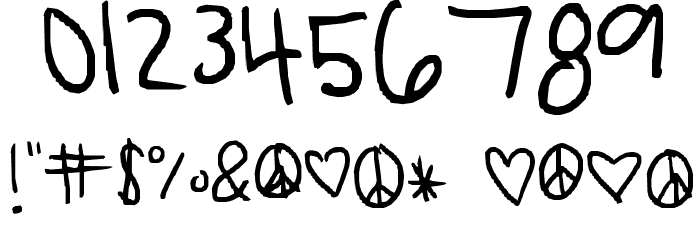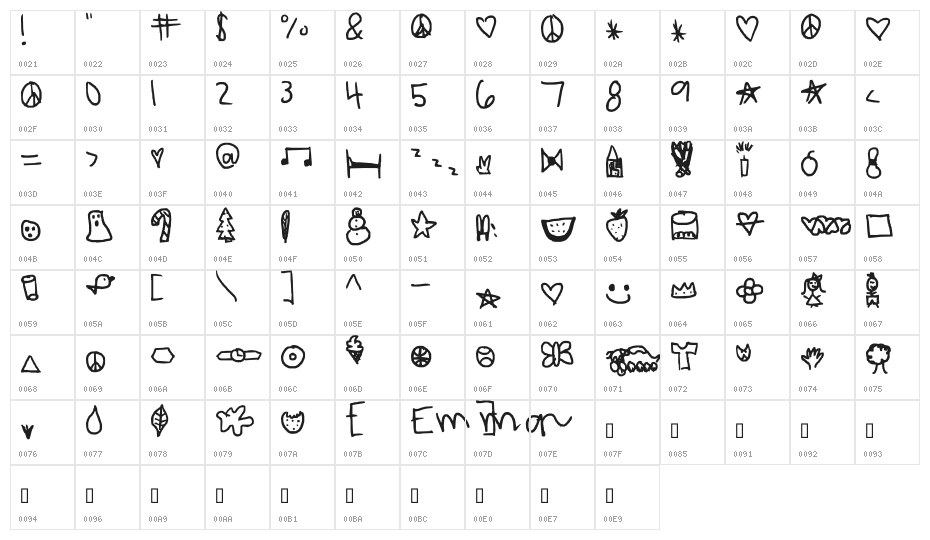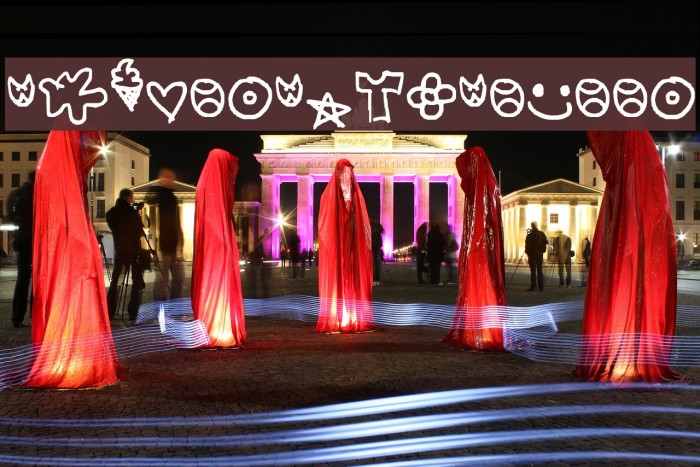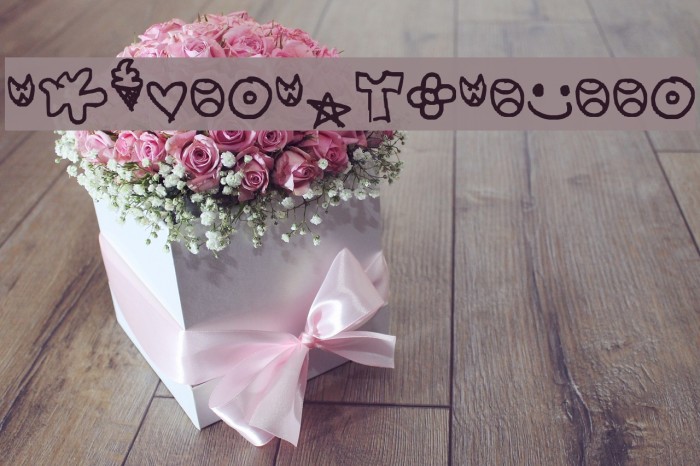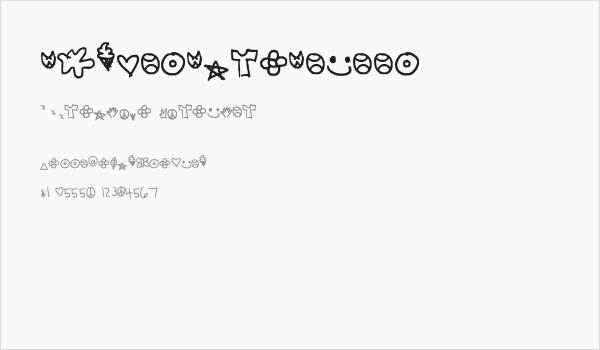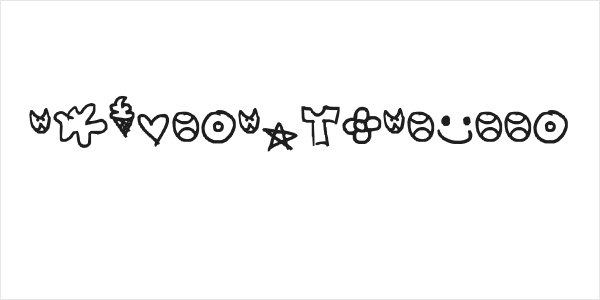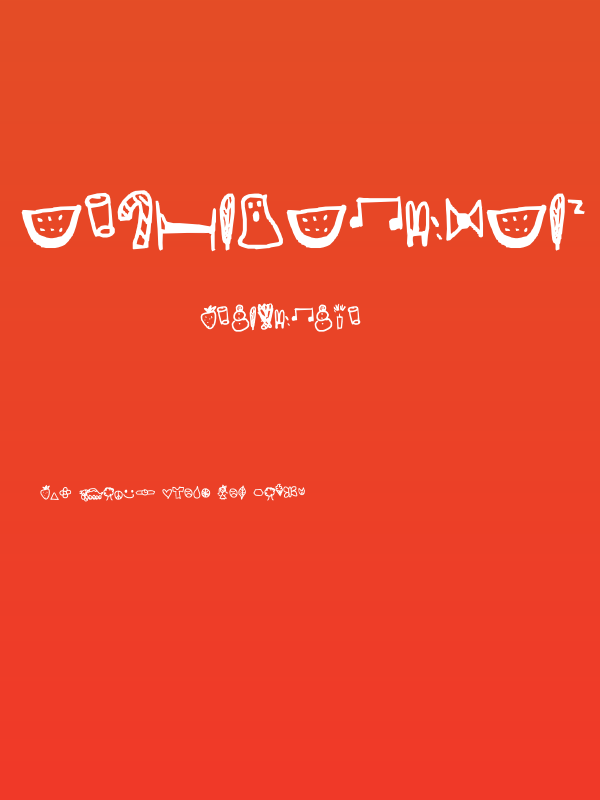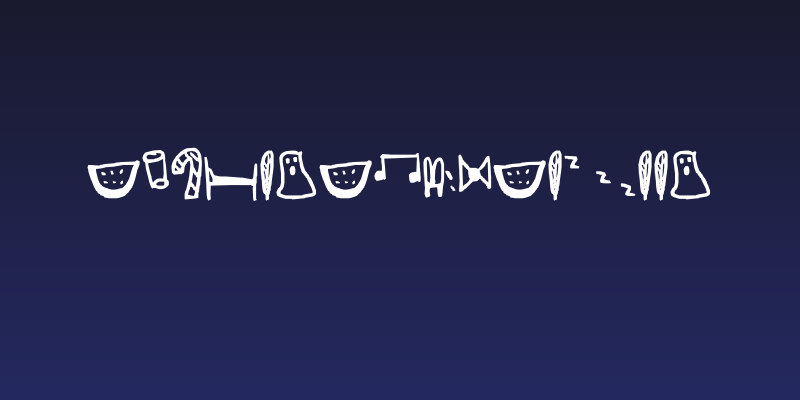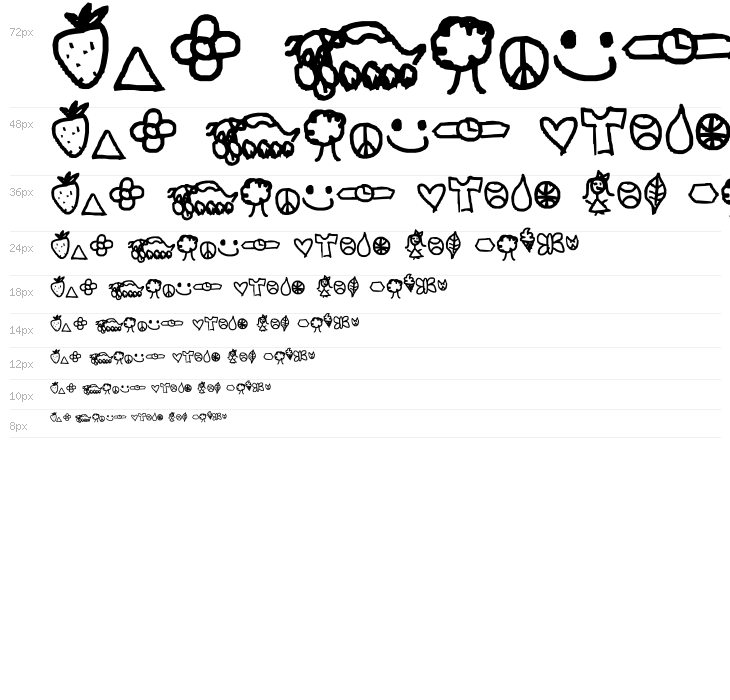
symbolsaresocool Font
symbolsaresocool Description
This collection features a playful and whimsical assortment of hand-drawn symbols and numbers. The symbols include a variety of everyday objects and abstract shapes, each rendered with a casual, doodle-like quality. The numbers are bold and slightly irregular, maintaining the hand-drawn aesthetic. The overall style is informal and creative, making it suitable for projects that require a fun and lighthearted touch. The symbols range from musical notes and food items to peace signs and hearts, offering a diverse array of elements for creative expression.
| Use Case | Logos, Art projects, Informal designs |
| Proposed Projects | Ideal for children's books, greeting cards, playful branding, and creative art projects. |